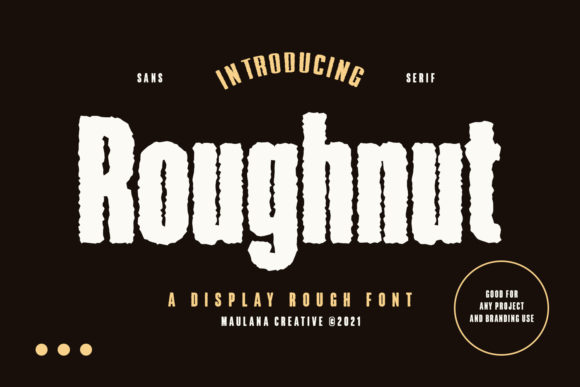
Introducing Roughnut Font - The Epitome of Boldness and Creativity. Elevate Your Artistic Journey.
Unleash your creative spirit with Roughnut Font, a strikingly bold display font that will ignite your imagination and transform your design projects into captivating masterpieces. Crafted by the visionary Maulana Creative, Roughnut embodies a captivating symphony of sharp edges and dynamic curves, making it the perfect choice for a diverse spectrum of crafting endeavors, including cards, branding, labels, and beyond.
Prepare to be mesmerized as you effortlessly incorporate Roughnut into your creative endeavors, witnessing the remarkable transformation it brings. From the crisp lines of a business card to the eye-catching allure of a product label, Roughnut will add an undeniable touch of sophistication and distinction to your creations.
Immerse yourself in the boundless possibilities that Roughnut Font presents, allowing your creativity to soar to unprecedented heights. Experience the thrill of transforming ordinary projects into extraordinary works of art.
Don't miss this opportunity to harness the power of Roughnut Font and elevate your artistic journey to new realms of brilliance. Embrace the boldness and innovation that Roughnut embodies, and let your creativity shine brighter than ever before.